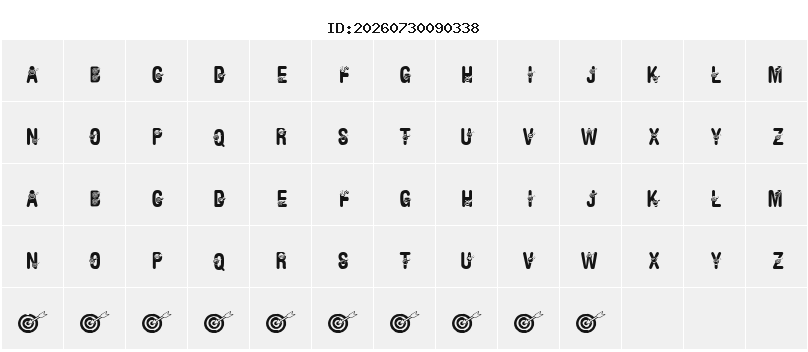
KR Bullseye! Preview
• Font Name: KR Bullseye!
• Full Font Name: KR Bullseye!
About KR Bullseye!.ttf
KR Bullseye!.ttf is a modern, elegant sans-serif font designed for ultimate readability and visual harmony. Perfect for branding, headlines, web design, and print materials.